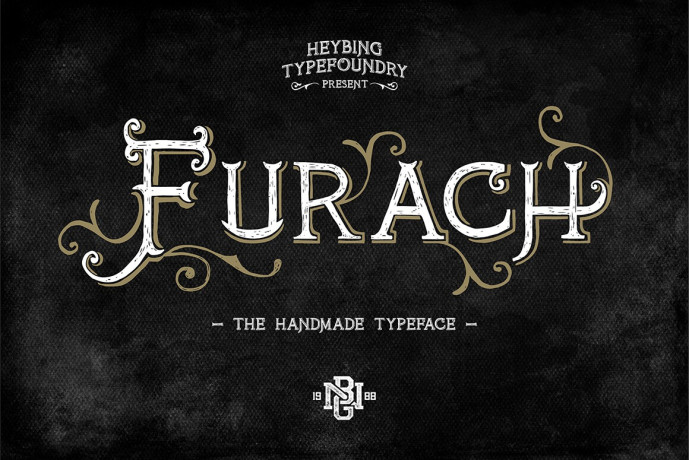
Eryoni Font
Designer: basqueibas
Bring intricate Victorian artistry to life with FURACH, a decorative handmade display typeface! Designed with ornate serif spurs, chalk-like inner textures, and sweeping Victorian scrollwork swashes, this font exudes antique elegance and classic craftsmanship.
Ideal for boutique logo design, craft spirits labels, vintage book covers, luxury packaging, tattoo studio branding, and ornamental headlines, FURACH turns every layout into a work of art.